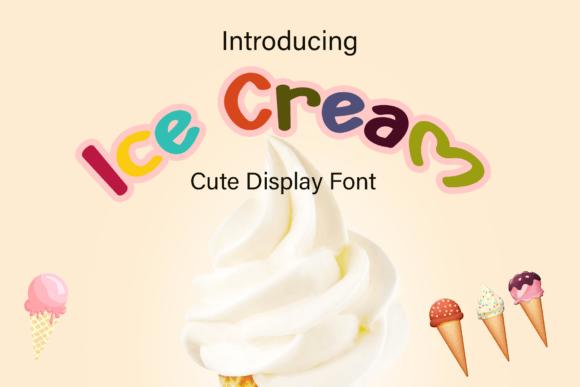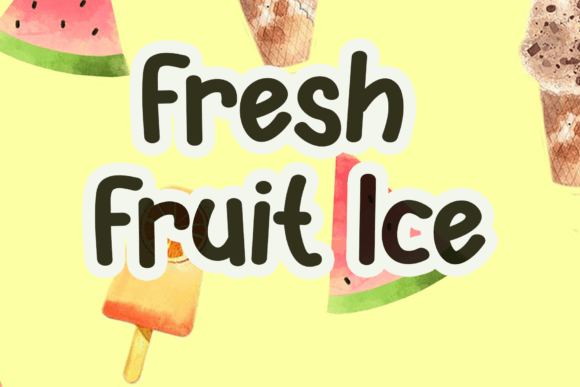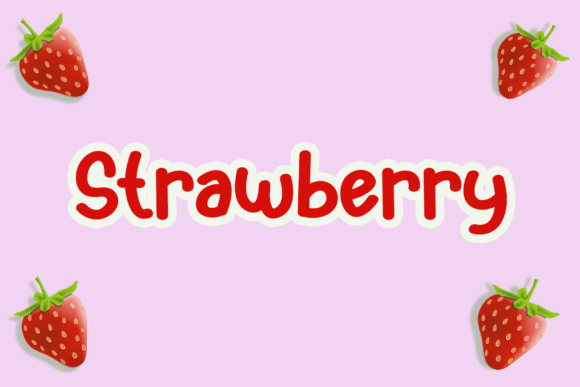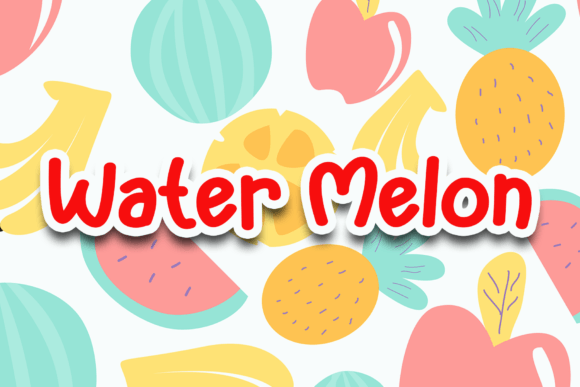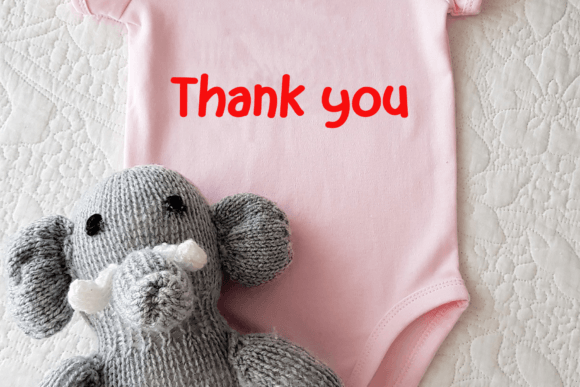
The Sweetest Addition to Your Design Palette
Have you ever been working on a project and suddenly, the perfect font pops into your head? That’s exactly what happened to me when I stumbled upon the Ice Cream Font. I was brainstorming ideas for a friend’s birthday card, and I wanted something that would capture the fun and playful spirit of the occasion.
Ice Cream Font is a cool and modern display font that’s perfect for any creative project. Whether you’re working on digital designs, crafting, presentations, or greeting cards, this font has the potential to elevate your work and make it stand out. As a designer, you know how valuable it is to have a versatile font that can adapt to any situation.
Ice Cream Font Key Features
- Unique Characteristics: The font’s unique, hand-drawn style and playful curves make it perfect for creating eye-catching and whimsical designs, such as children’s books, food packaging, and social media graphics.
Ice Cream Font Review
Overall, I think the “Ice Cream Font” has a fun and playful vibe ✨. The rounded edges and smooth curves give it a friendly and approachable feel that’s perfect for casual projects or brands that want to convey a sense of warmth and friendliness. The font is also highly customizable, making it a great option for designers who want to add a personal touch.
- The font’s rounded edges and smooth curves make it highly legible, even at smaller font sizes ✨.
- The wide range of customization options makes it easy to tailor the font to your specific design needs ✨.
- The font is highly versatile and can be used for a variety of projects, from logos and branding to signage and packaging.
However, there are a few limitations to consider ⚠️:
- The font may not be suitable for formal or professional projects, as it can come across as too playful or immature ⚠️.
- The font’s rounded edges and smooth curves can make it difficult to use for projects that require a lot of emphasis or drama ⚠️.
- The font may not be as readable at very large font sizes, which can make it difficult to use for signage or other projects where readability is a top priority ⚠️.
Overall, I think the “Ice Cream Font” is a great option for designers who want to add a playful and friendly touch to their projects. While it may have some limitations, its versatility and customizability make it a great choice for a wide range of projects.
Ice Cream Font: A Practical Application Guide
Use the Ice Cream Font to add a playful and whimsical touch to your designs, especially in children’s party invitations, menus, or social media graphics.
Experiment with different font sizes and styles to create a unique and eye-catching effect.
Combine the Ice Cream Font with other playful graphics and elements to create a cohesive and engaging design.